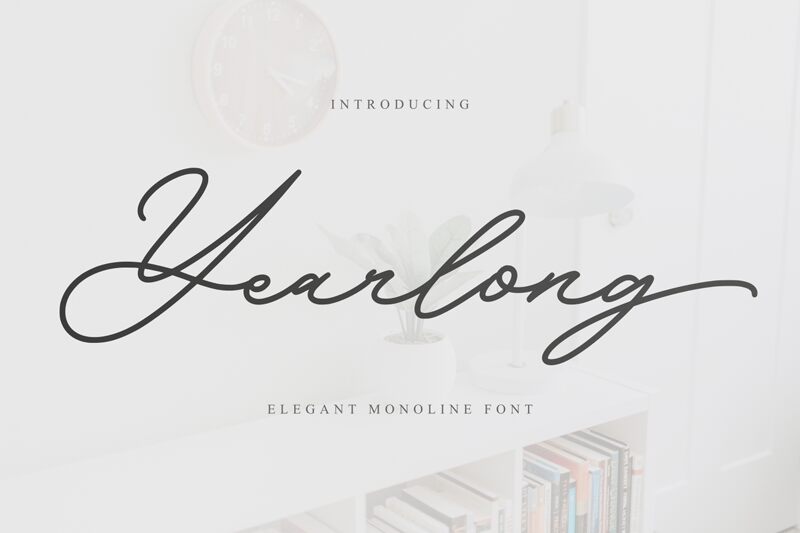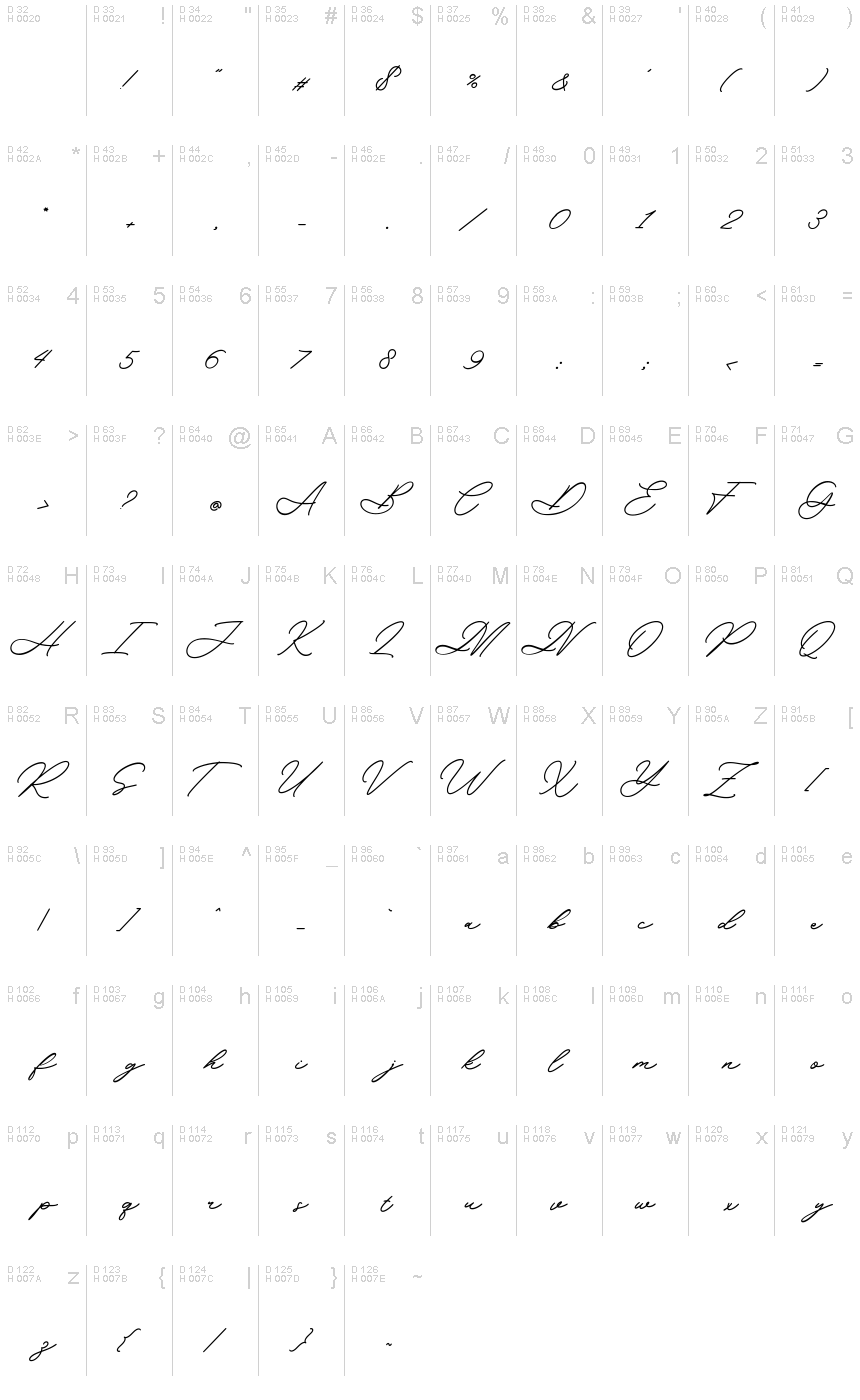
Yearlong, designed by Makashi of MaqsumKS, is a handwritten font that exudes elegance and personal touch. Its delicate strokes mimic the finesse of ink flowing from a calligrapher's pen, while its sweeping curves lend a sense of sophistication. The light touch of Yearlong gives it an airy and graceful presence on the page, inviting readers into a world of intimate expression.
Perfect for invitations, branding, and editorial design, Yearlong brings an authentic handwritten aesthetic to projects that demand a personal yet polished feel. Whether it's adding a signature flourish to logos or enhancing the charm of personalized stationery, this font is versatile enough to elevate any creative endeavor with its stylish allure.